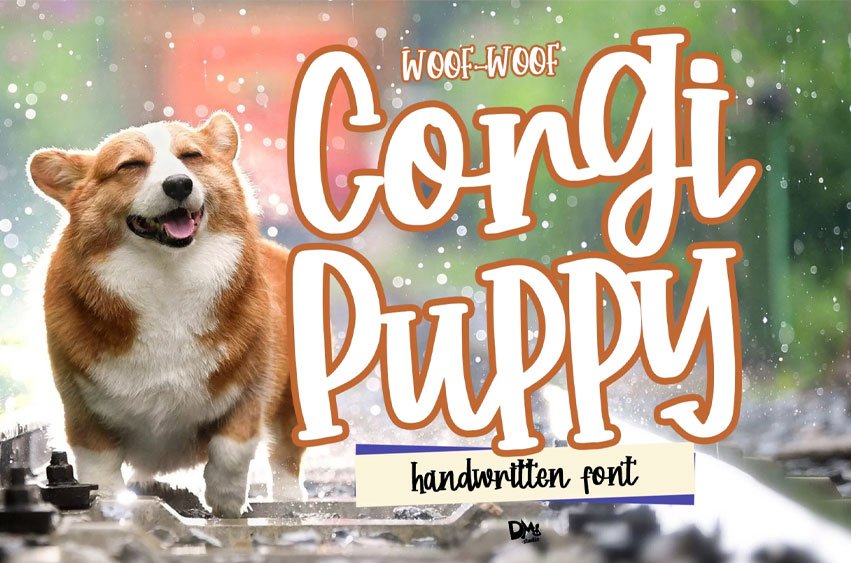
Corgi Puppy Font Woof-woof! Quirky, fun but lovely handwritten font, suitable for your crafty design!
Features:
- Uppercase
- lowercase
- numerics
- symbols